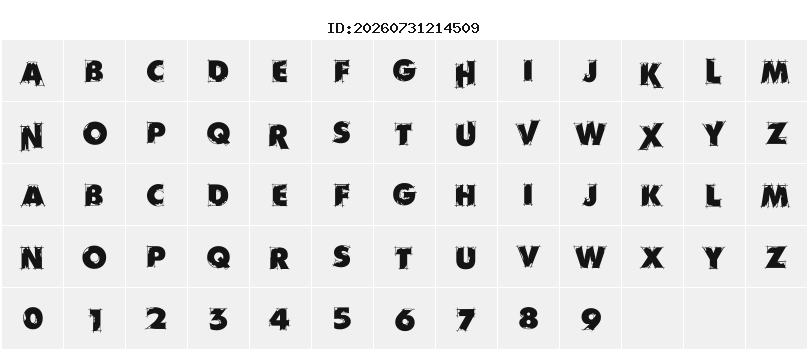
LayoutGothic Preview
• Font Name: LayoutGothic
About LayoutGothic.ttf
LayoutGothic.ttf is a modern, elegant sans-serif font designed for ultimate readability and visual harmony. Perfect for branding, headlines, web design, and print materials.